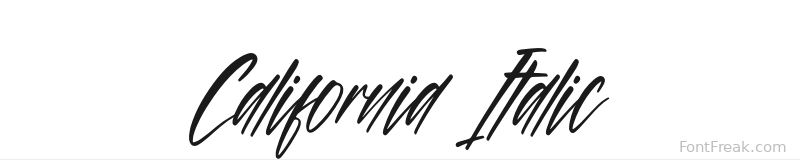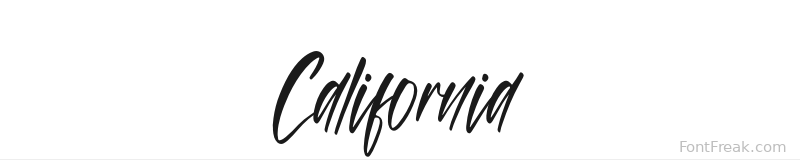
California Italic
California
About California Italic
The California Italic font by Perspectype Studio is a stunning display typeface that captures the essence of elegance and modernity. Designed with a distinct italic style, this font offers a unique blend of sophistication and readability, making it an excellent choice for a variety of creative projects. Its graceful strokes exhibit a moderate contrast in weight, giving it a dynamic appearance that is both eye-catching and stylish. The fluid lines and slight slants contribute to its overall charm, while the ample spacing between letters enhances legibility, ensuring that your text stands out in any context.
This font is particularly well-suited for projects that demand a touch of flair. It excels in applications like wedding invitations, where the elegant curves can evoke romance and celebration. Movie posters can benefit from its dramatic style, capturing attention and setting the tone for the film. Additionally, California Italic is ideal for restaurant menus, adding a touch of class to the dining experience. Small business owners looking to elevate their branding will find this font effective for logos and promotional materials, while content creators can utilize it in social media graphics and blog headers.
Targeting graphic designers, small business owners, and content creators, this font provides versatility and artistic appeal. The California Italic font free download offers an accessible opportunity for anyone seeking to elevate their design projects without compromising on quality. Its distinctive character sets it apart from other fonts, making it a staple for those who appreciate both style and functionality. With its blend of elegance and modern appeal, California Italic is sure to enhance any project, making it a valuable addition to your typographic toolkit.